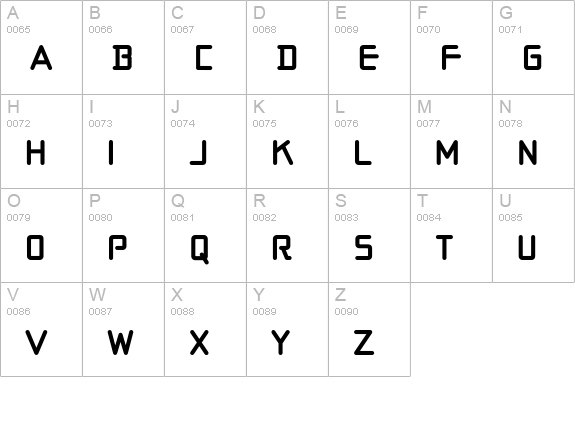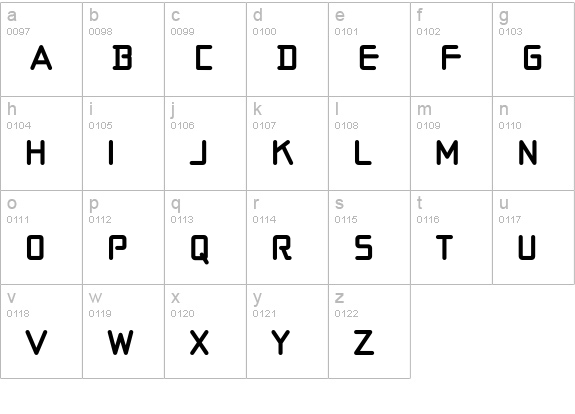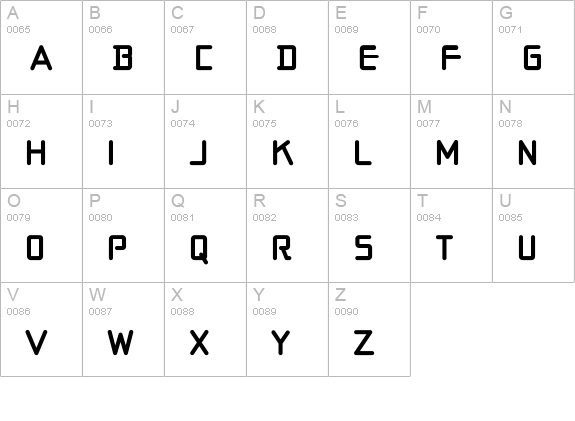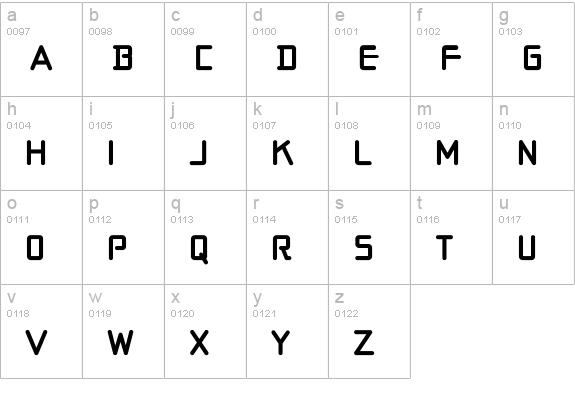
Moto Font Details
Introducing Moto font - a sleek and modern typeface designed to add a touch of sophistication to your projects. With its clean lines and contemporary style, Moto is perfect for a wide range of design applications, from branding and advertising to print and digital media. This versatile font features a balance of elegance and readability, making it ideal for both headlines and body text. And the best part? Moto font is completely free to download at FontsMarket.com. You can easily access this stylish typeface and enhance your designs without any cost. Don't miss out on the opportunity to elevate your projects with Moto font today!